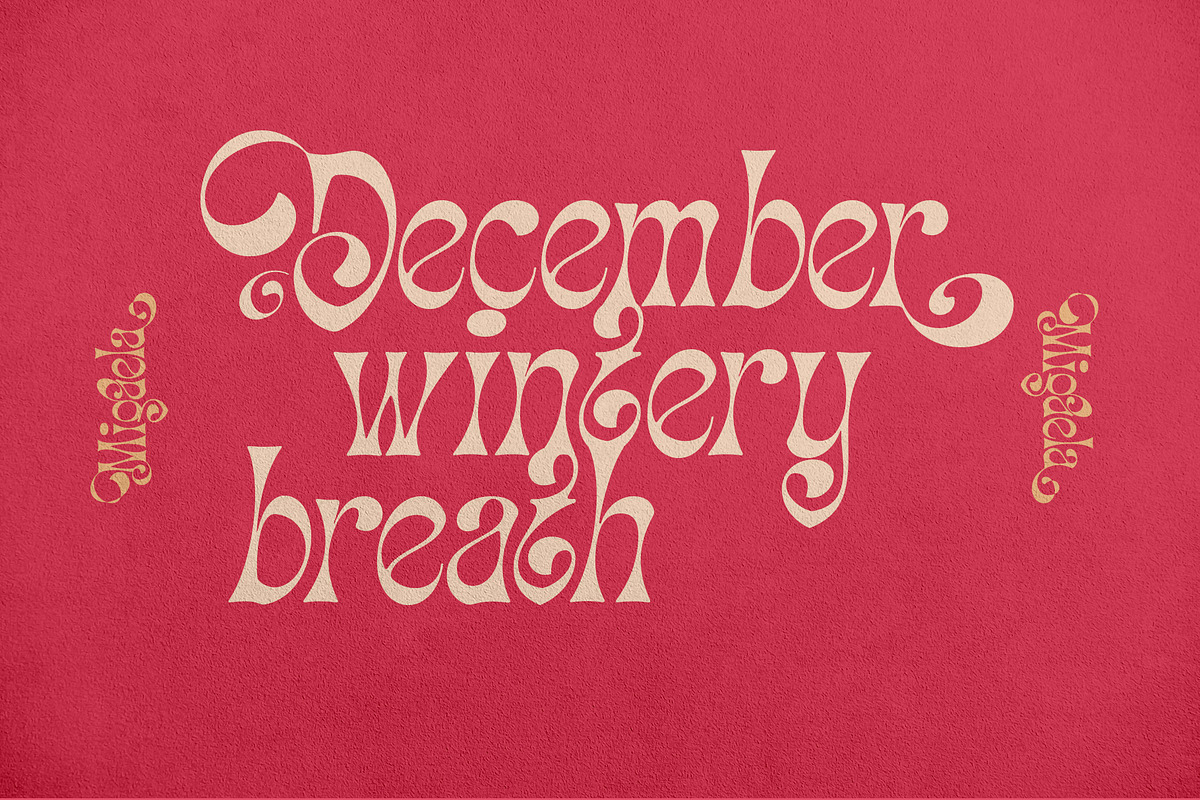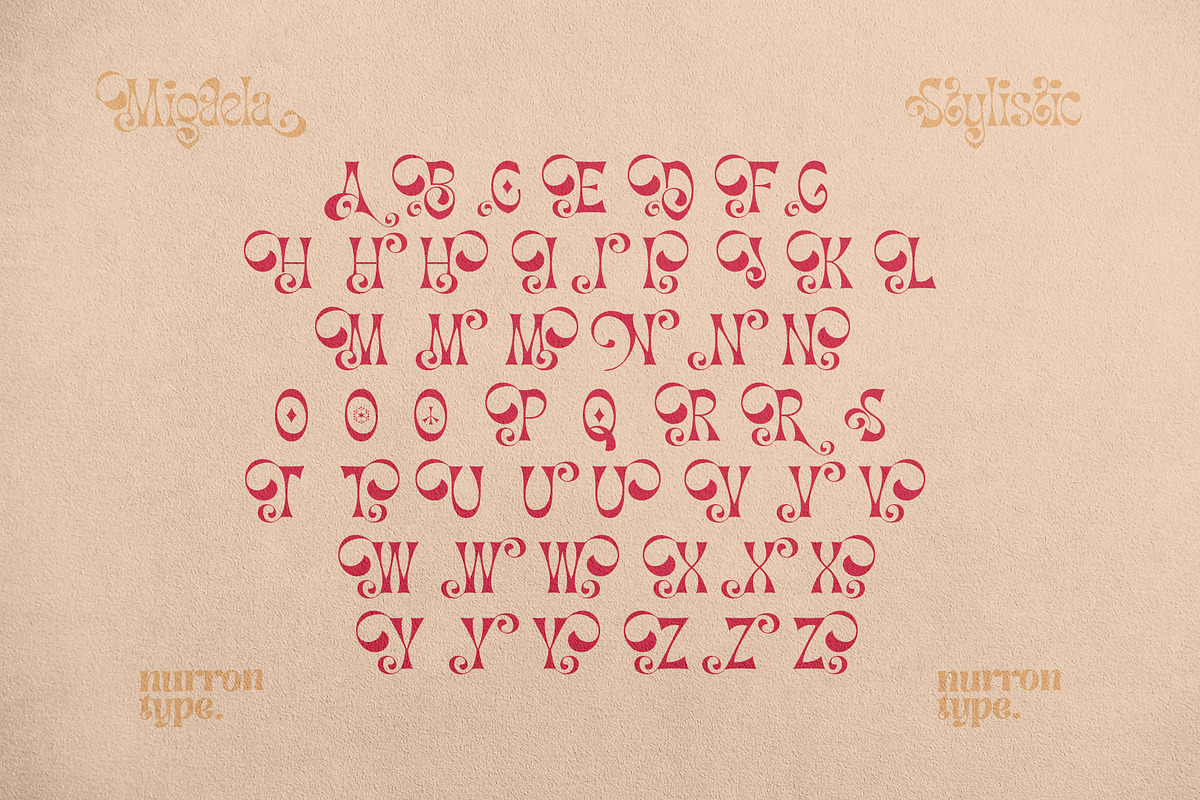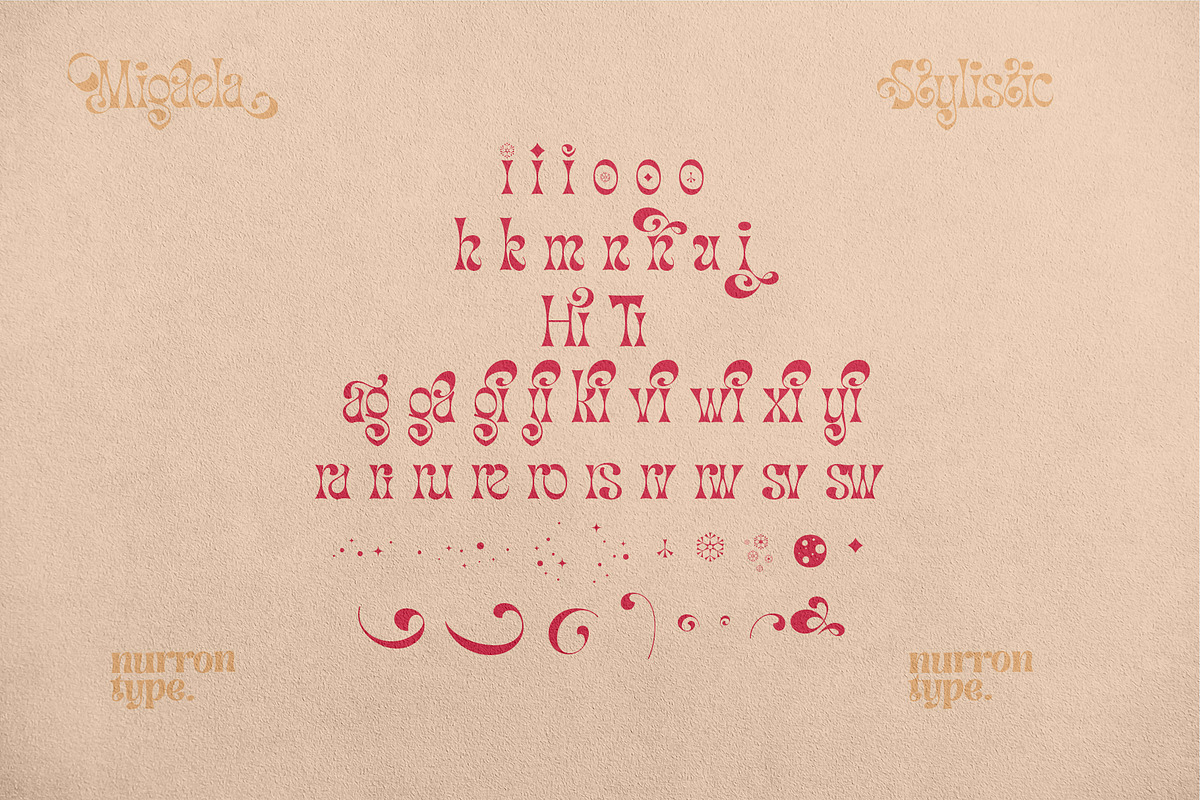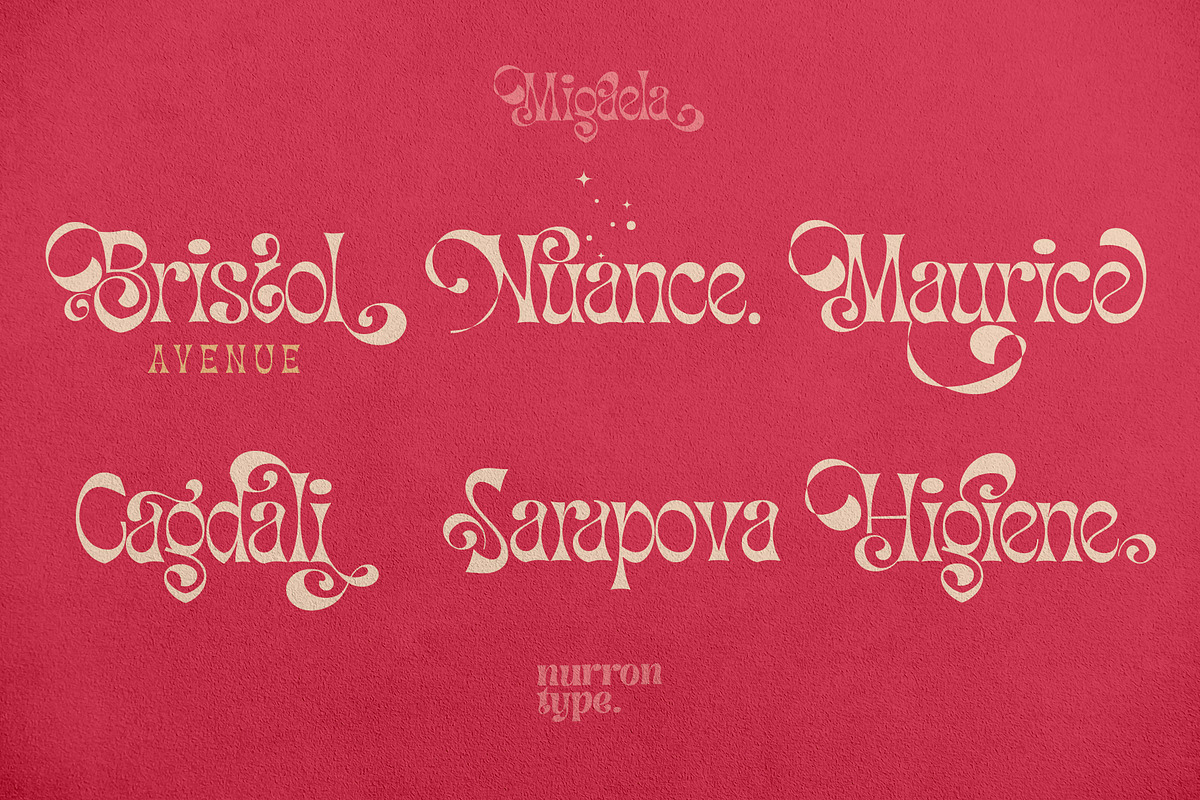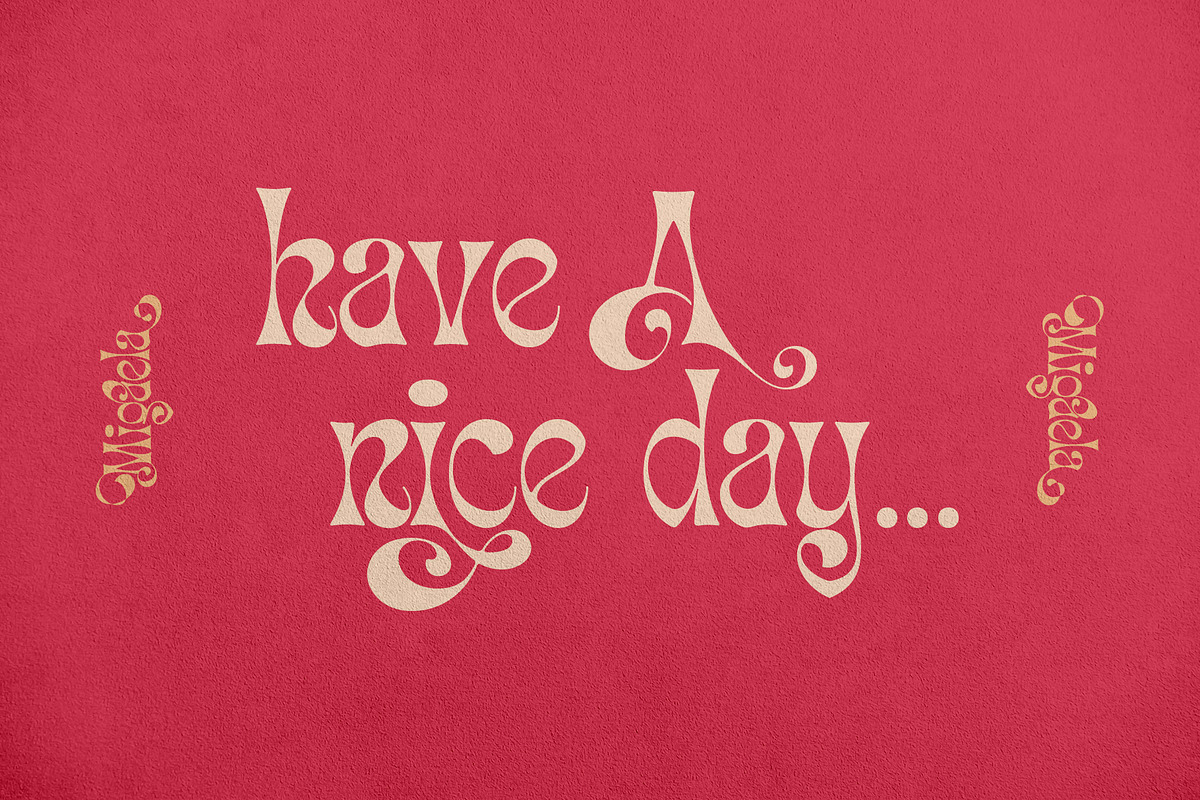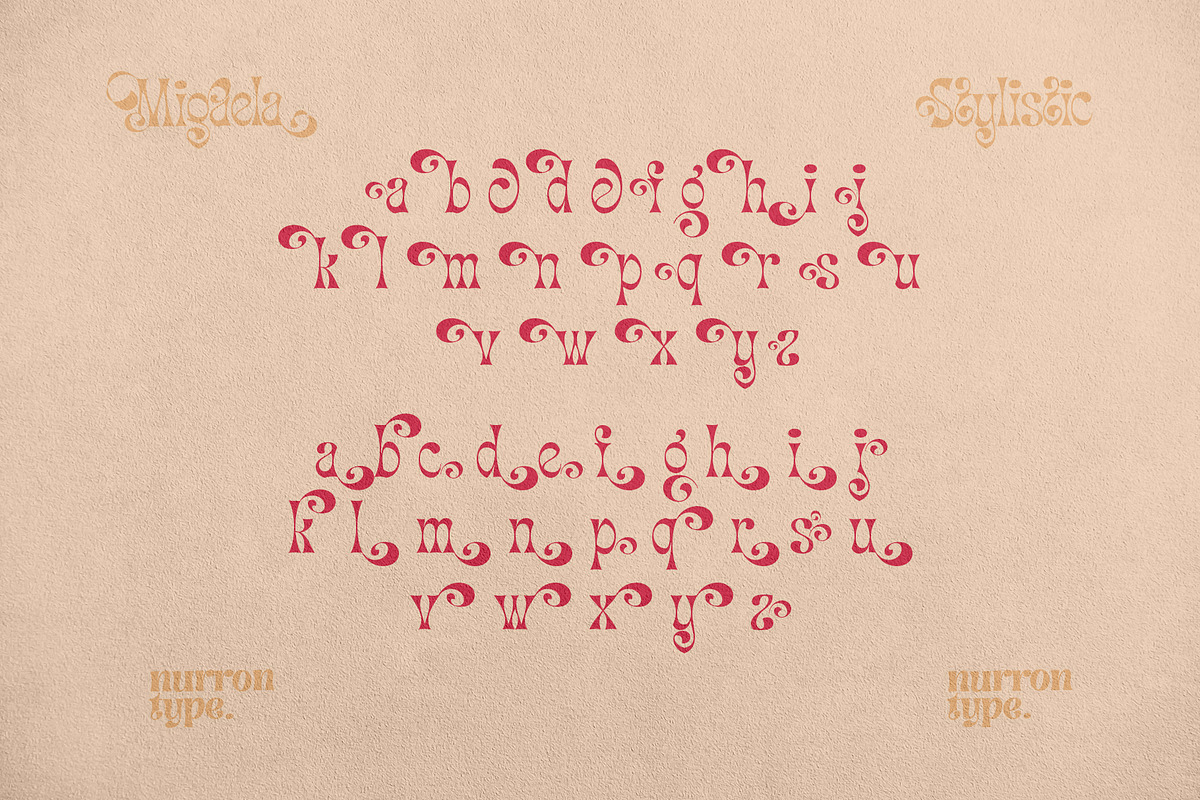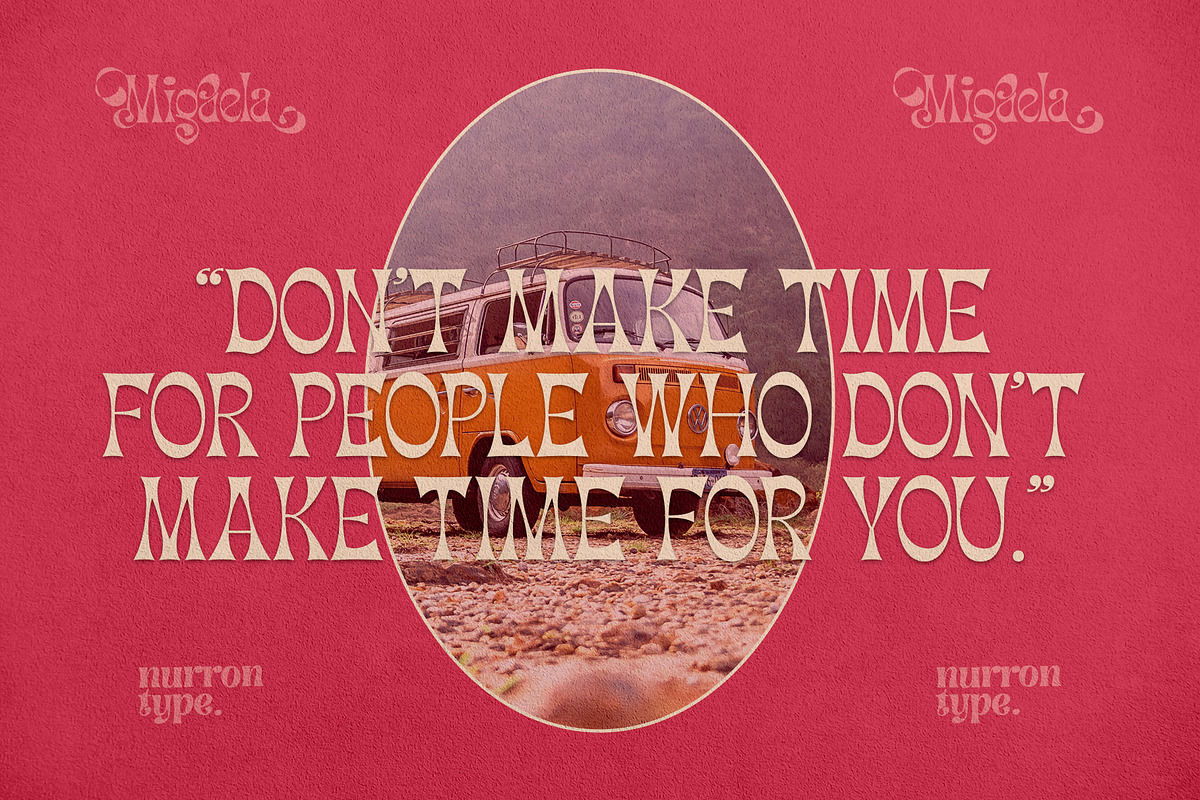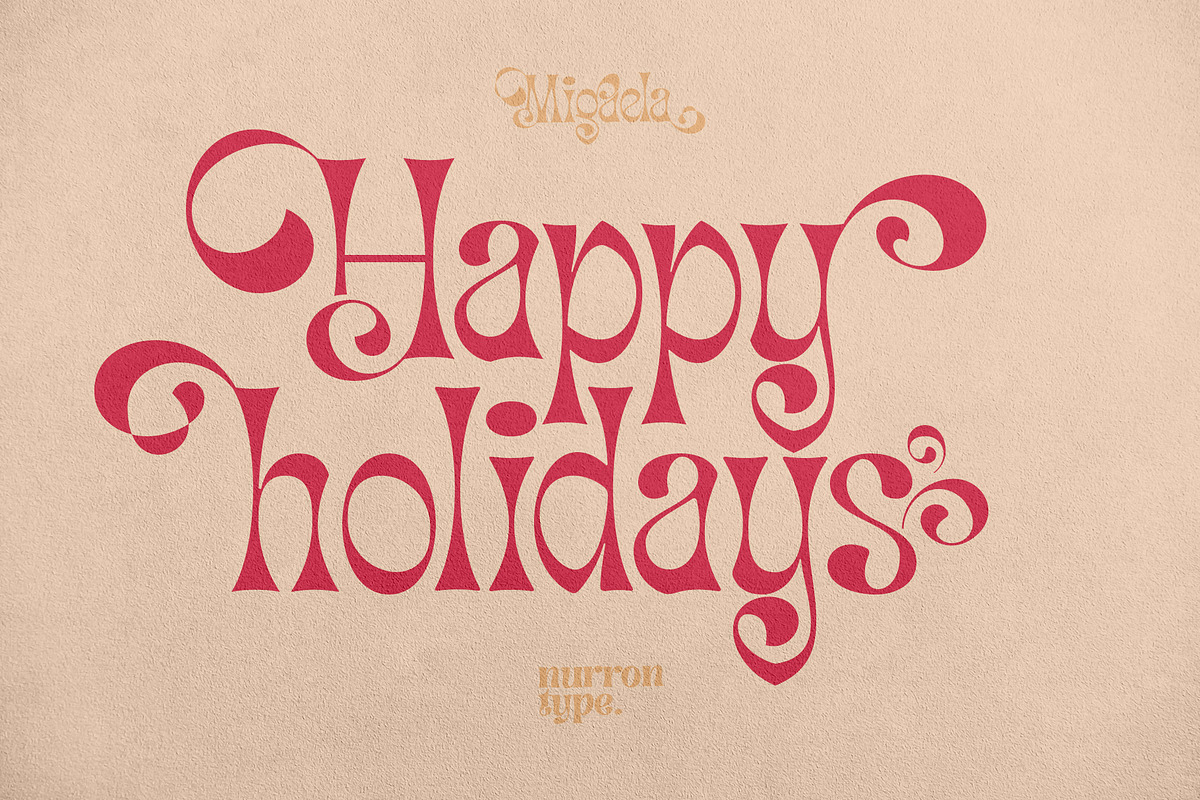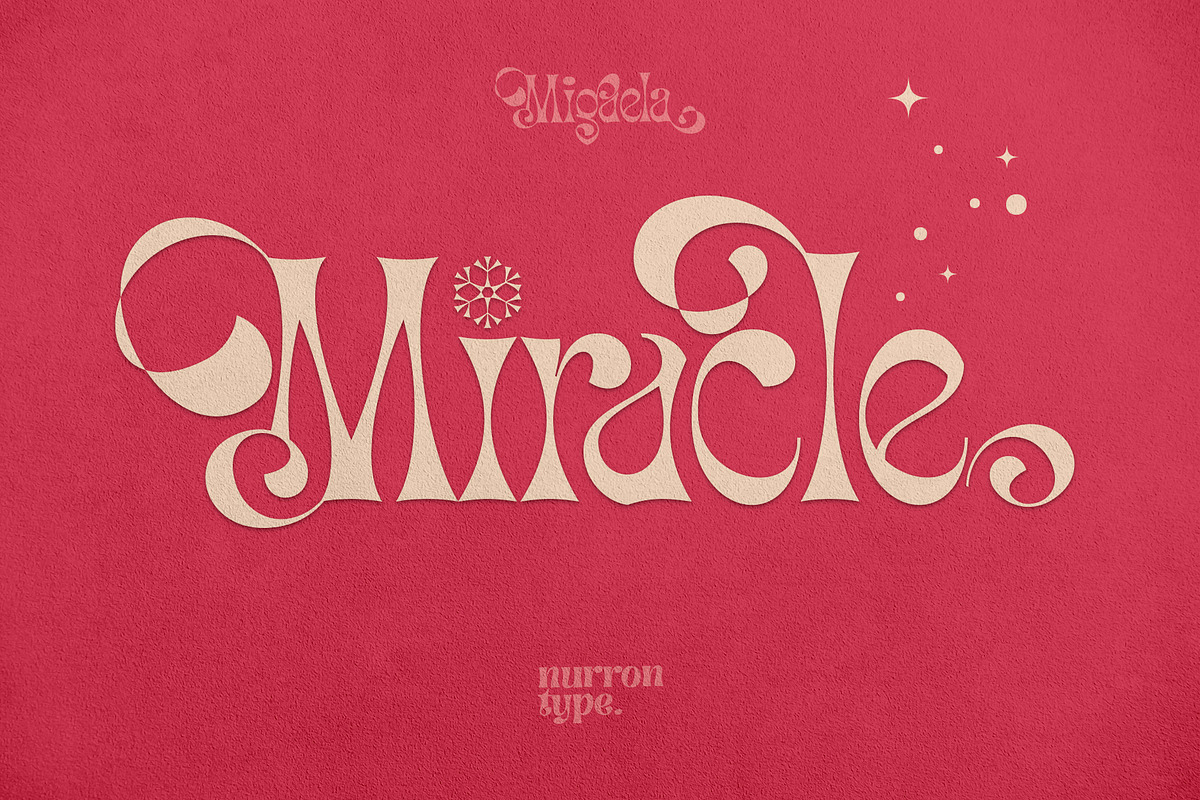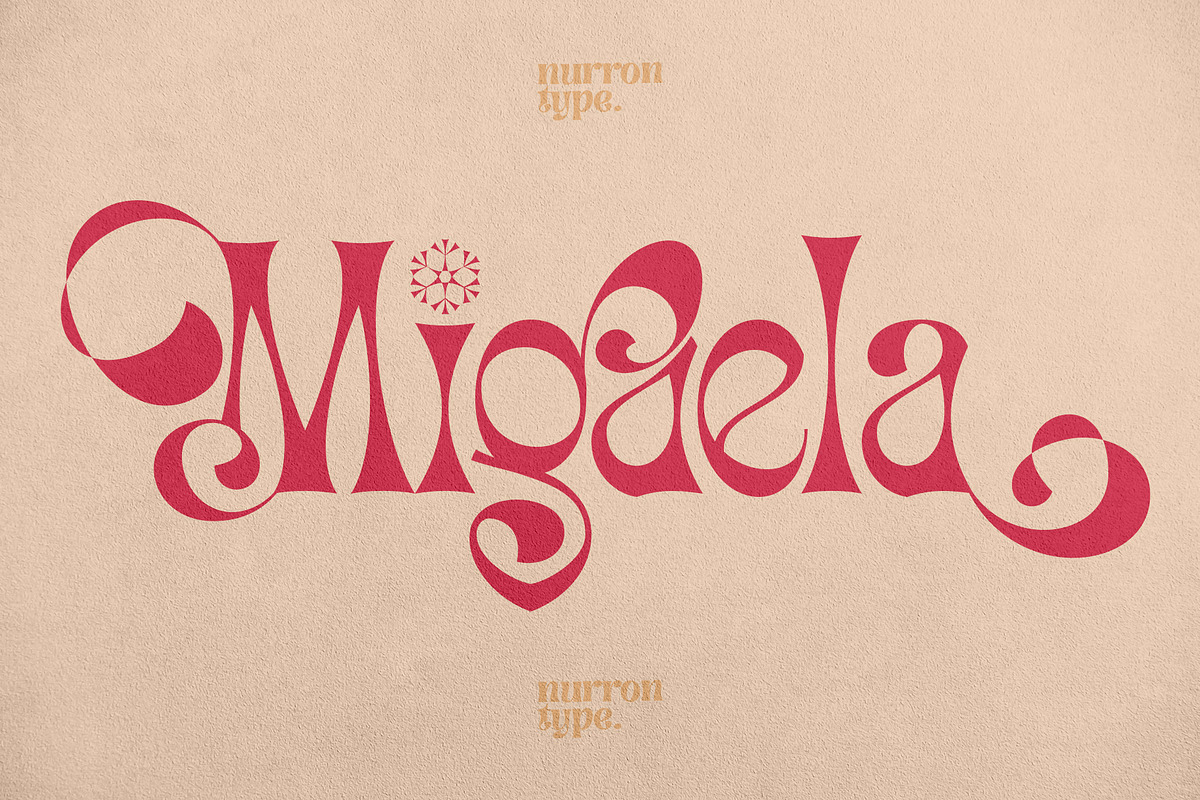
Migaela
Hi, I'm Migaela. I'm optimistic, inspiring and expressive typeface. My friend told me I'm cheerful, positive and charming. My designer made me with three optional style, Regular, Overlap and Smooth (rounded). It has unique stylistic and ornament. Don't you see that lowercase i with snow flake. It's so cute isn't it. Before I forget, kindly look my ligature, I know you like it. Buy me know, let me works together in your Christmas project, Holiday card, New Years event, and of course your next Valentine project.
I needed a fun font for a holiday poster, and this more than delivered. The glyphs and alternative letters are full of charm; it really helped inspire my creativity and take my design to the next level! Regarding the overlap issue another reviewer mentioned -- I found that to be true as well, but you just have to select the right alternates or mess with the kerning, and it's not a problem.
Intriguing font, unfortunately the various swatches overlay the other characters, rather than fitting nearly over or under them in most other designer fonts. Still, it's a playful, fun font.
Such a cute font! This will be put to good use.